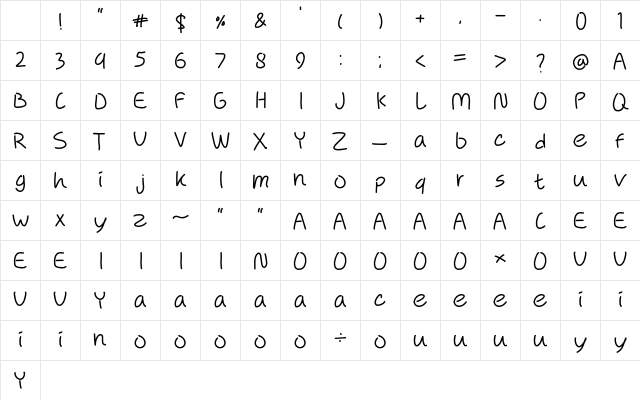
Mustika Flower is a composed and adaptable typeface that performs quietly and consistently across a wide range of design contexts.
Pro Tip: Use Mustika Flower in both headline and body roles to test its range before committing to a single application.